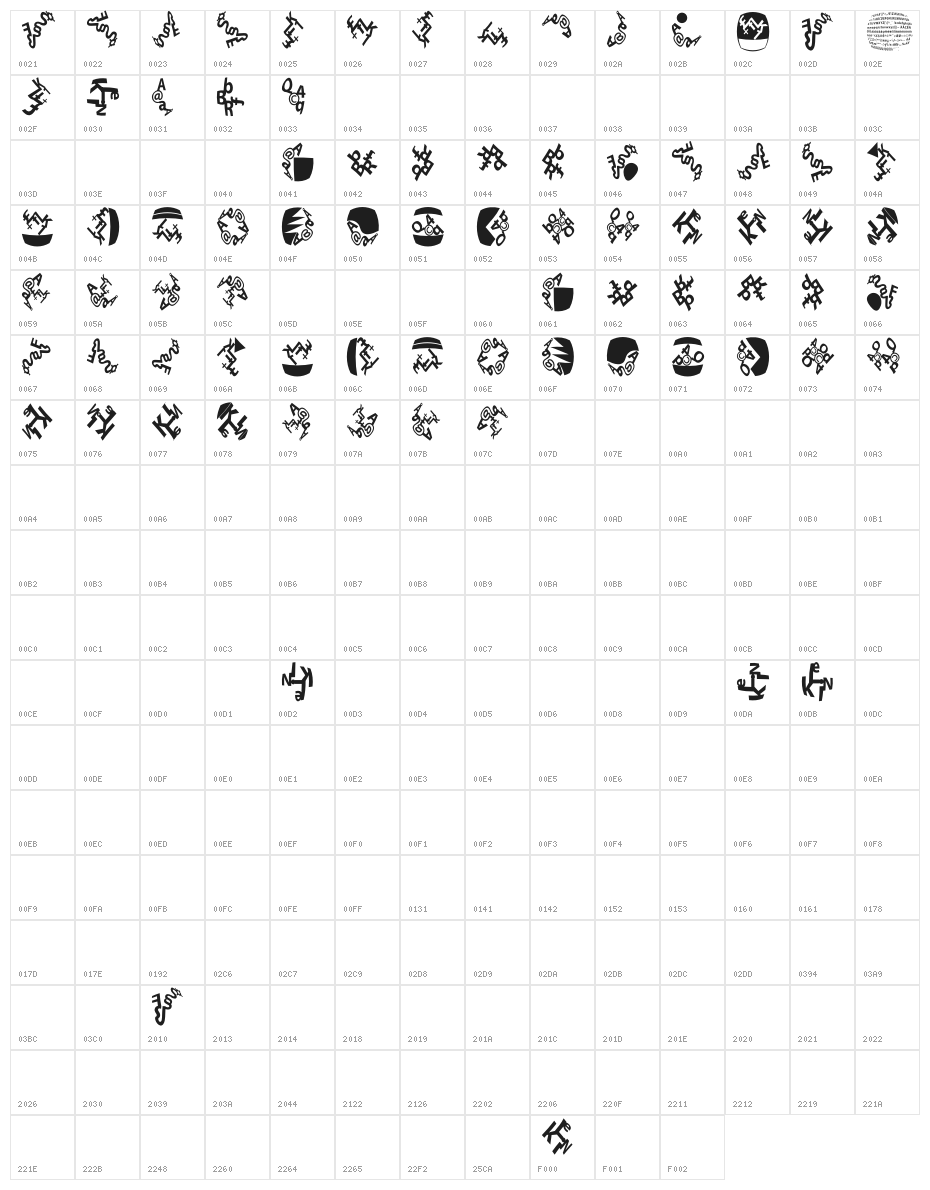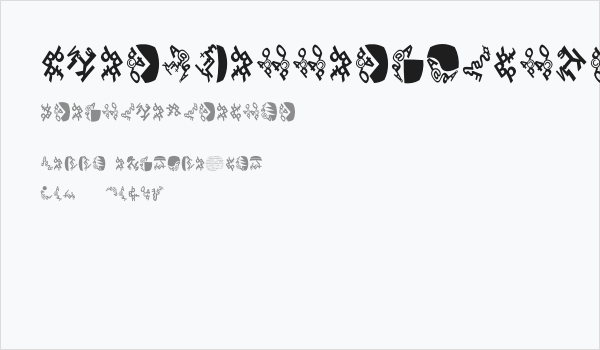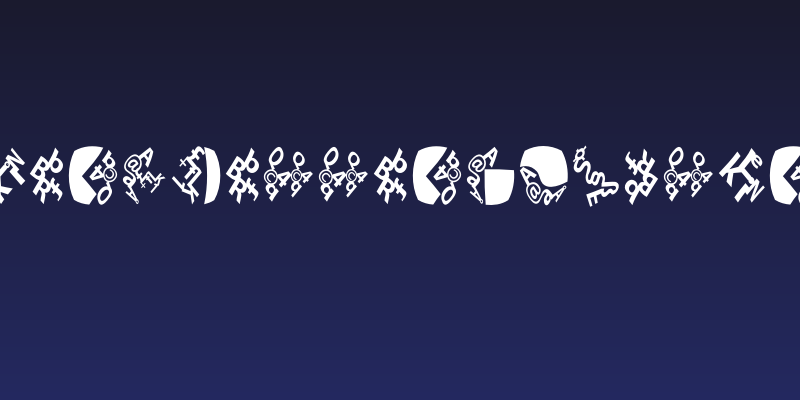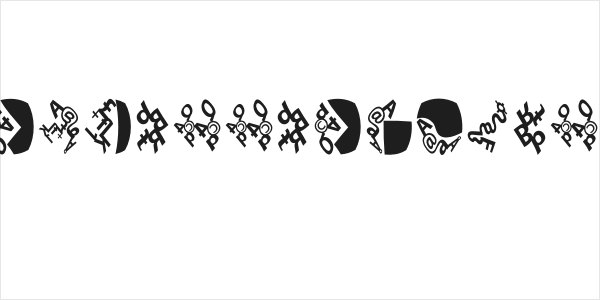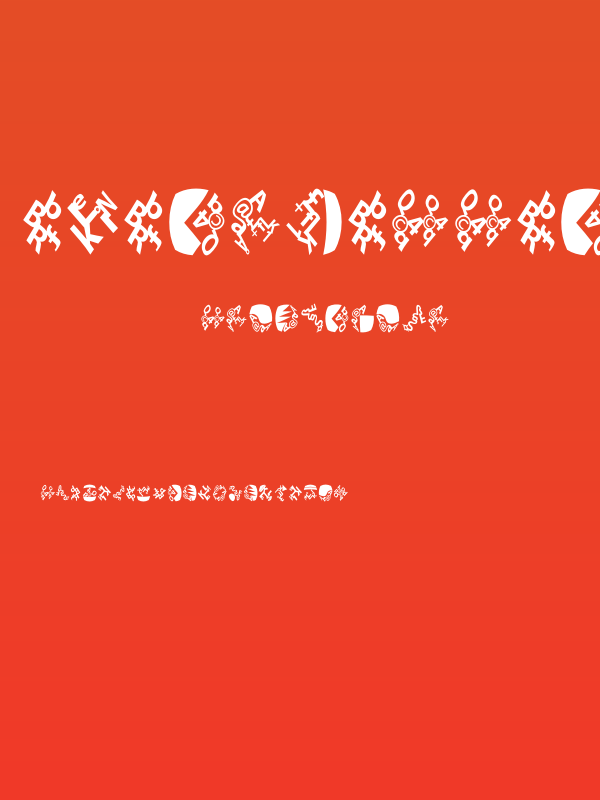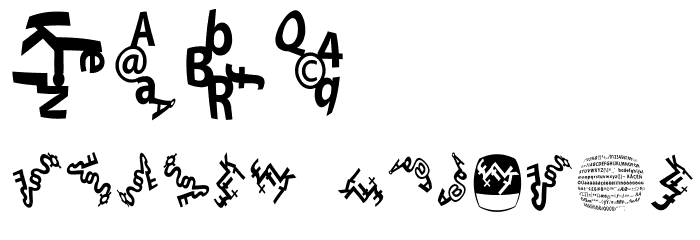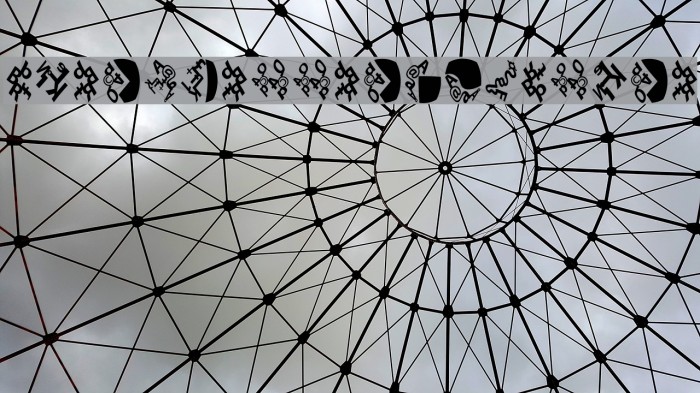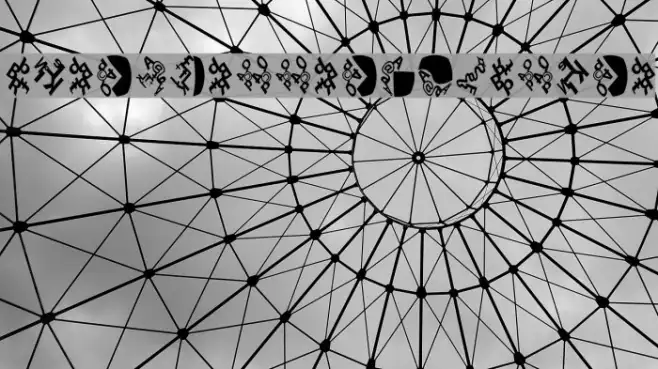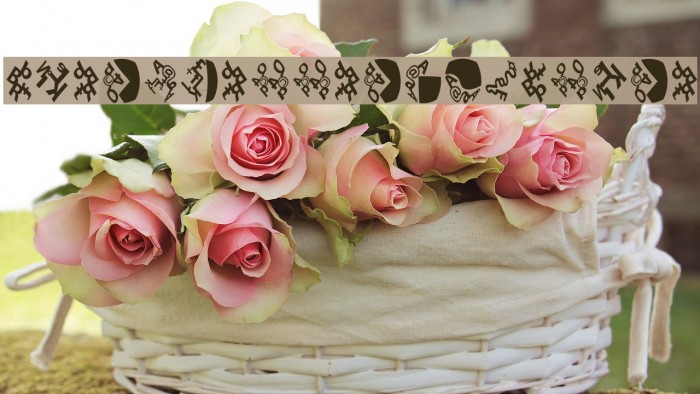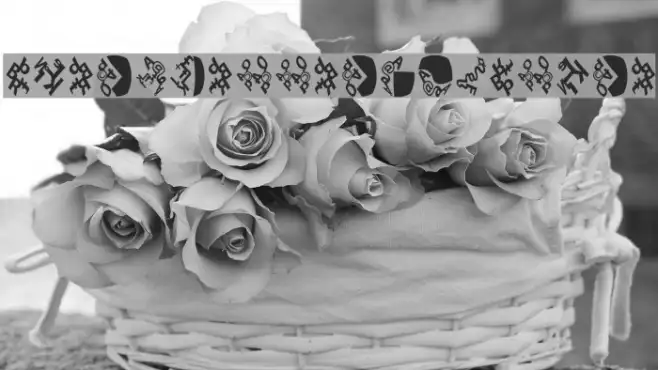
EveryLetterAPicture Font
EveryLetterAPicture Description
This design features a highly decorative and abstract style, where each character is transformed into a unique, intricate illustration. The characters are composed of various geometric shapes and lines, creating a complex and artistic appearance. The overall look is playful and unconventional, making it more of an artistic representation than a traditional font. Each letter and symbol is distinct, with no uniformity in stroke or form, emphasizing creativity and visual interest.
| Overall Style | Artistic, Abstract, Decorative |
| Use Case | Art projects, Posters, Creative branding |
| Proposed Projects | Ideal for artistic projects, creative posters, unique branding, and experimental design work. |